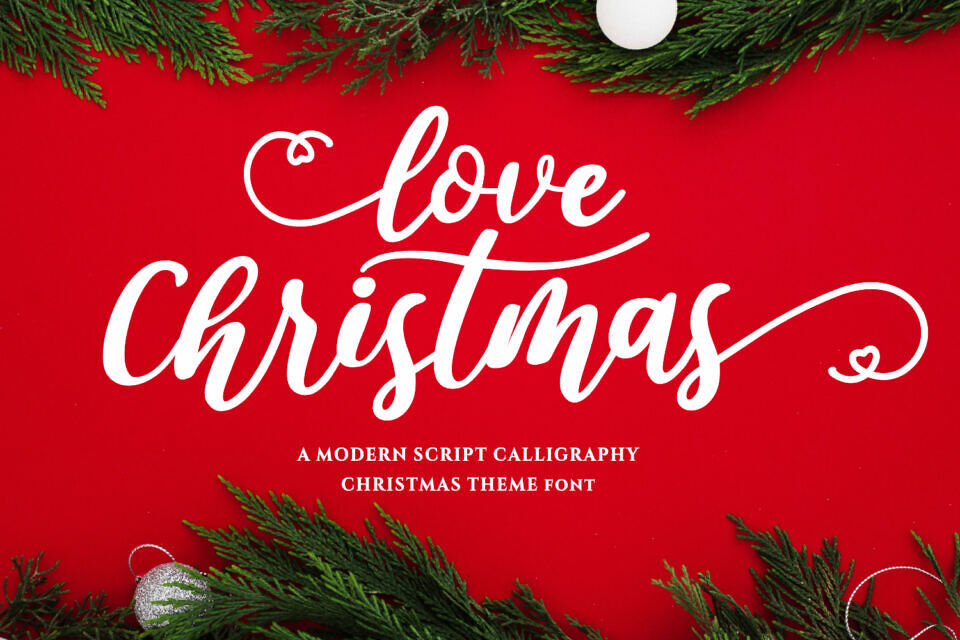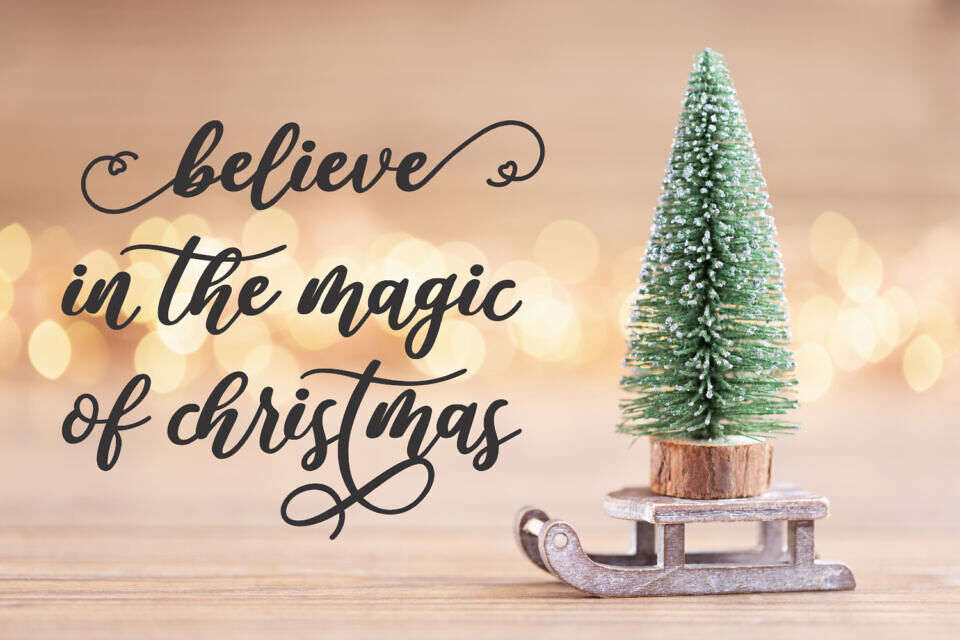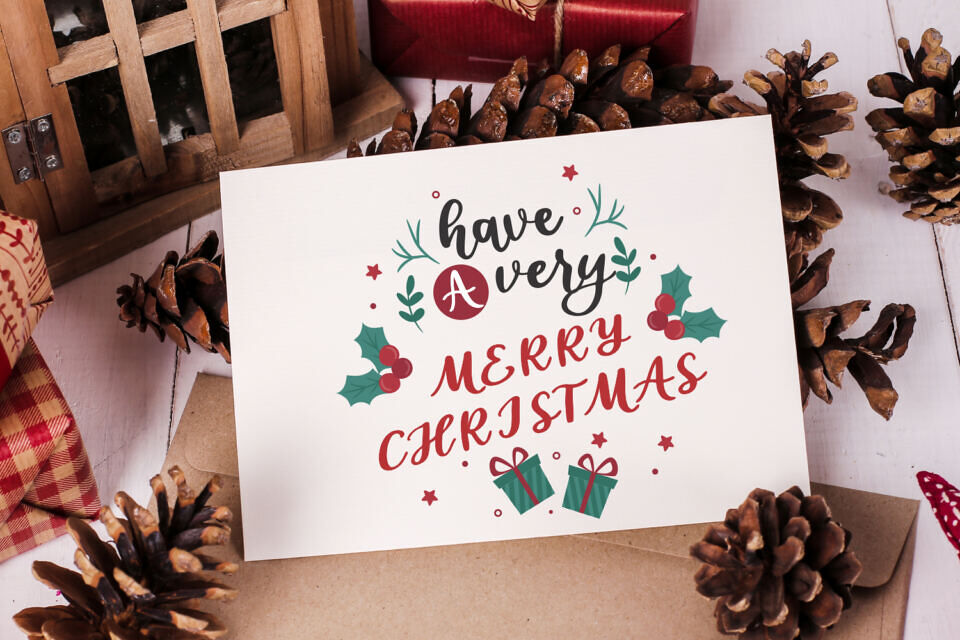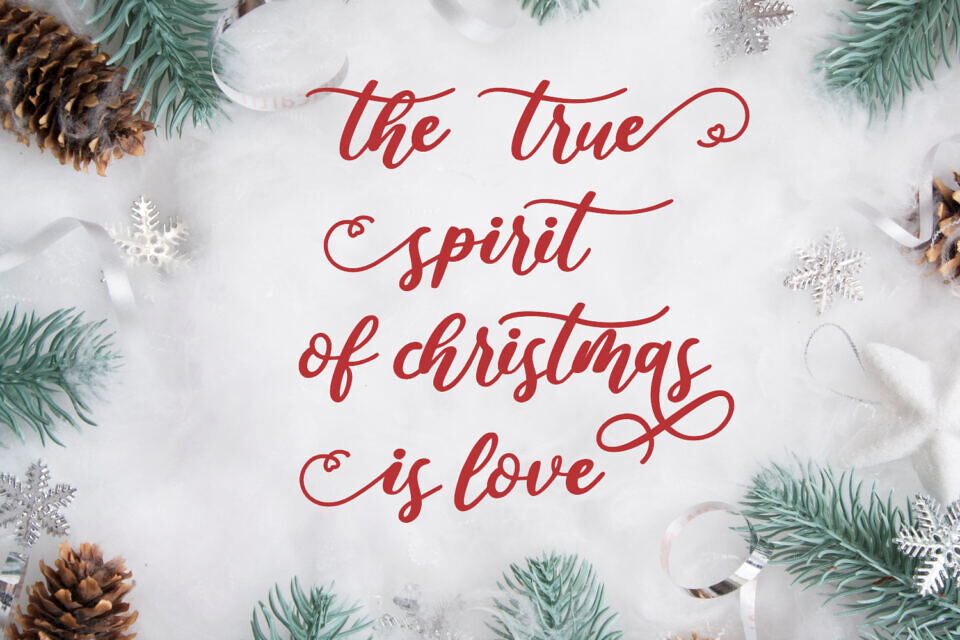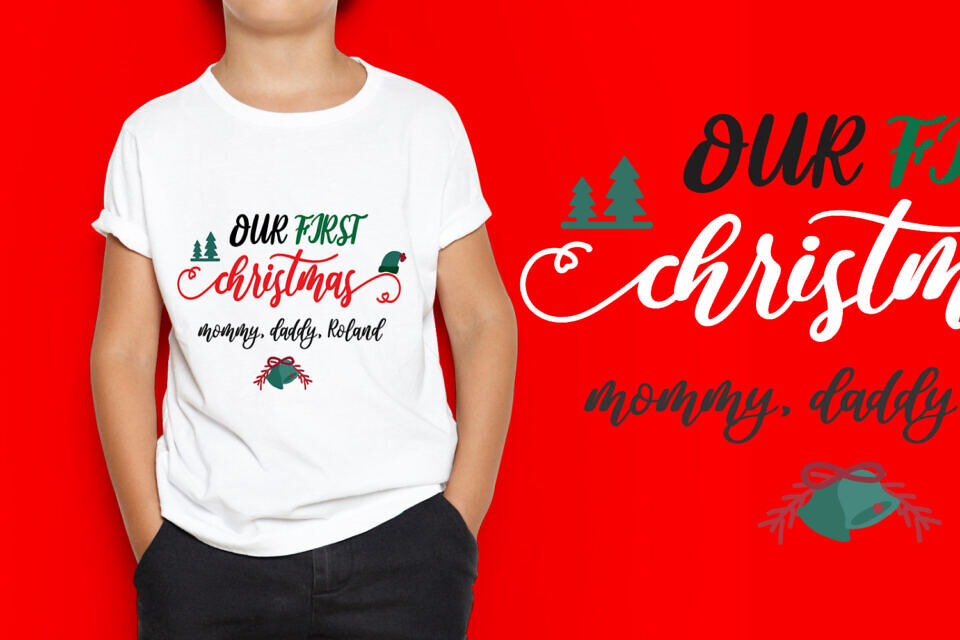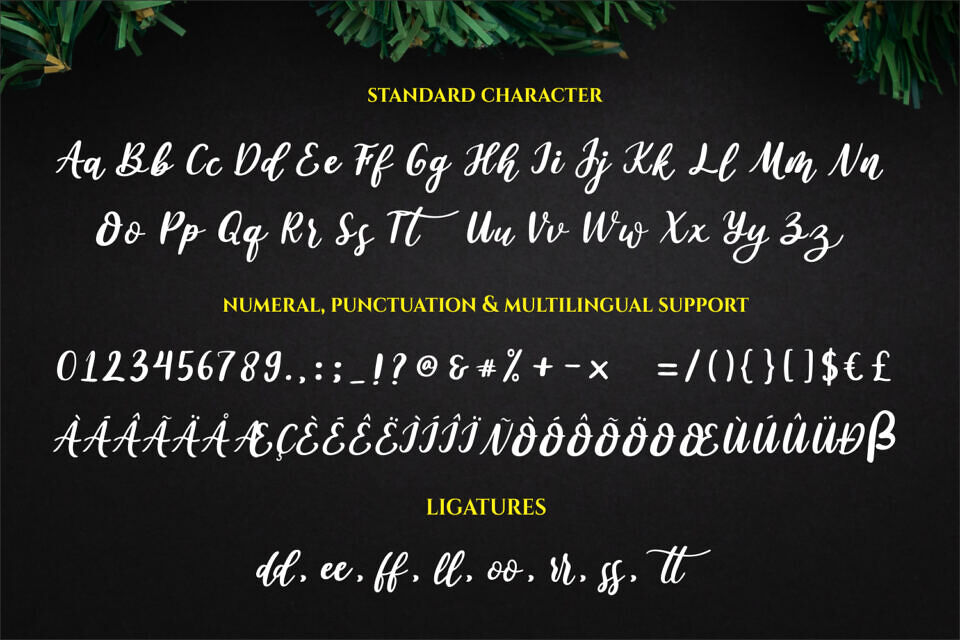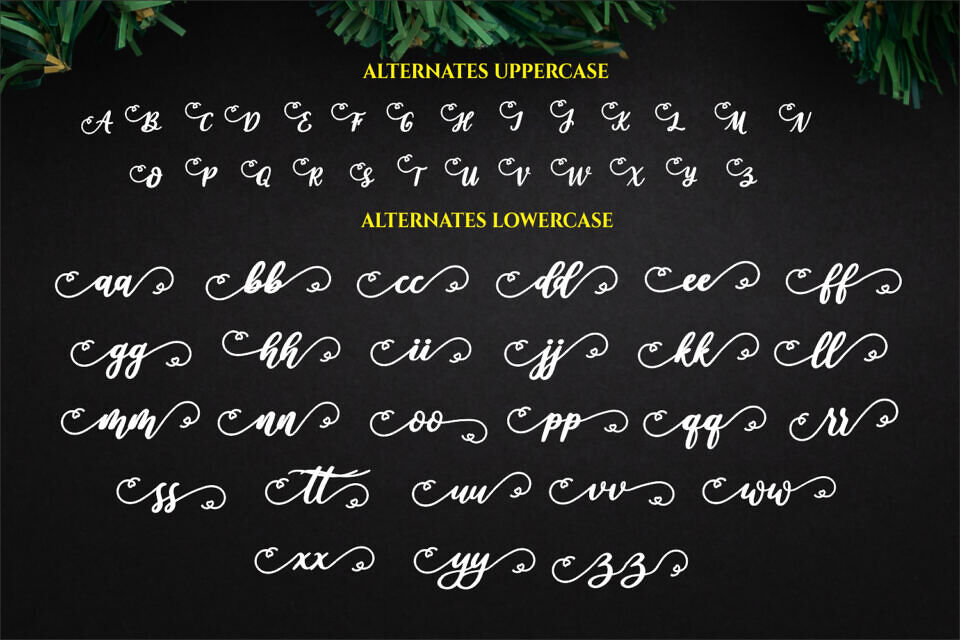
Love Christmas is a delicate, elegant and flowing handwritten font. It has beautiful and well balanced characters and as a result, it matches a wide pool of designs. Add it to your most creative holiday themed ideas and notice how it makes them come alive!